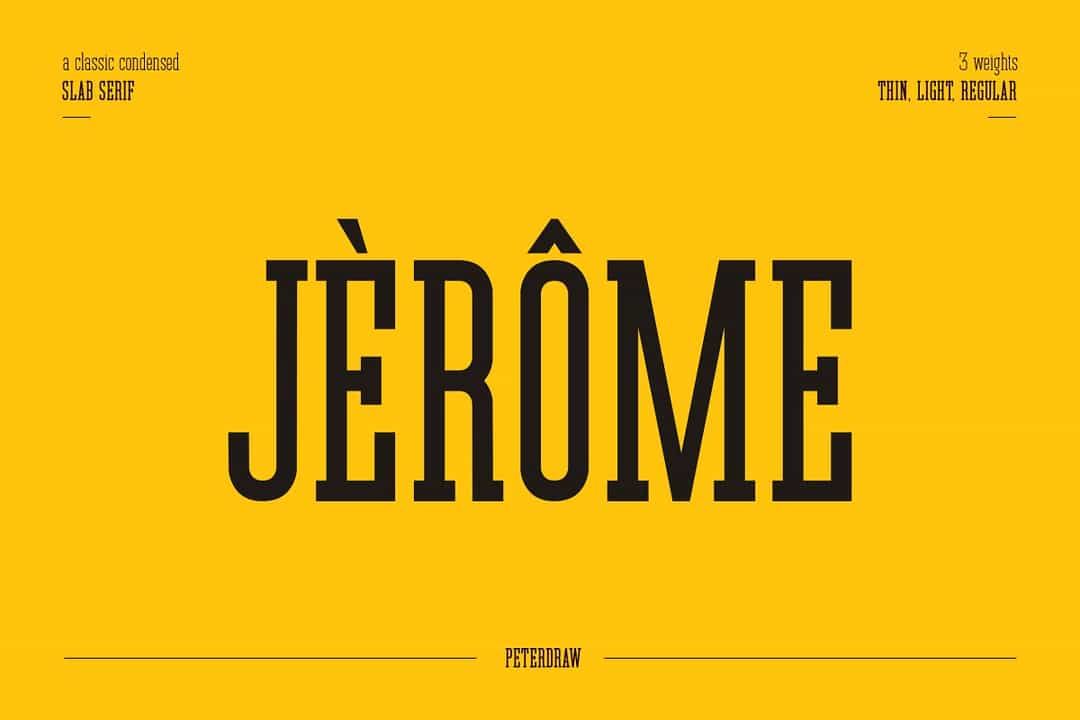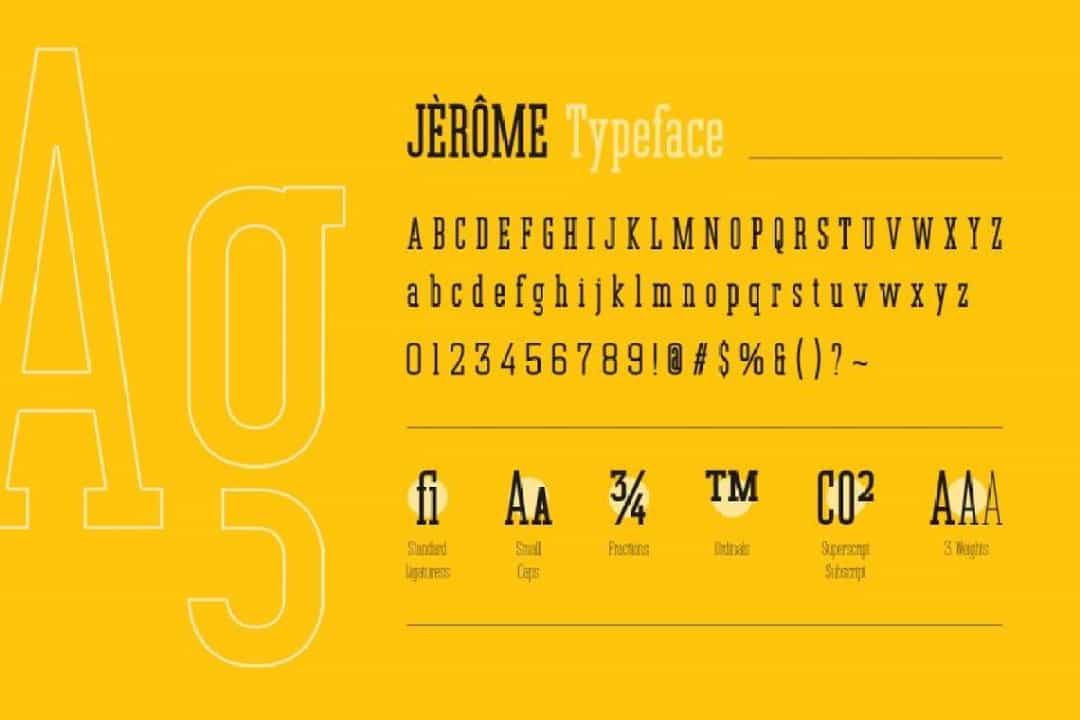
Jerome Condensed Slab Serif Font family is a strong, heavy and bold font designed by Josef Gobbels and is available in three styles; Light, Thin and Regular. Jerome is different with clean looks, beautiful logos and strong designs.